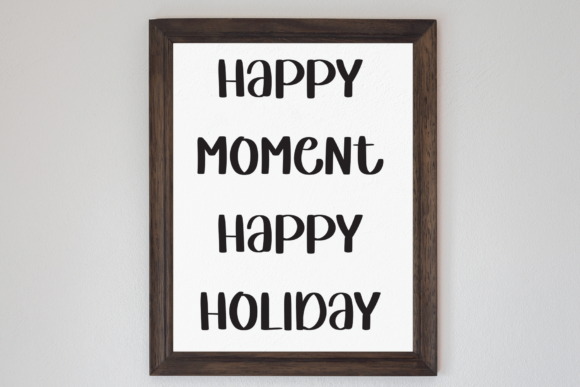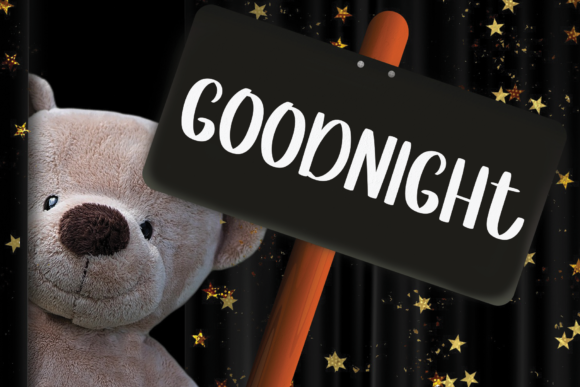
Marsmello Font
db-ku.com - Script & Handwritten -- Marsmello is a chic and playful handwritten font. It is suitable for any branding project like logos, t-shirt printing, sport designs, and more. It will look outstanding in a wide range of contexts.